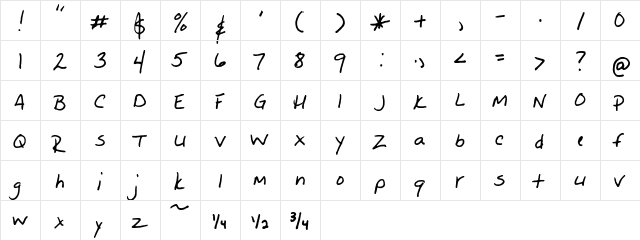
FG Erin-Elizabeth Regular
| Foundry | Erin-Elizabeth fonted by Font Garden |
Design Context for FG Erin-Elizabeth Typeface
FG Erin-Elizabeth offers clean, dependable letterforms without strong stylistic allegiance, making it a practical choice for designers who need flexibility.